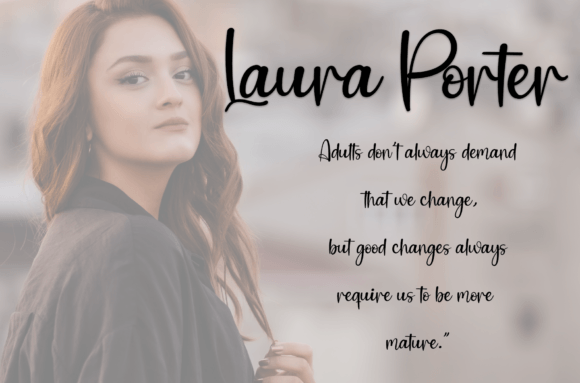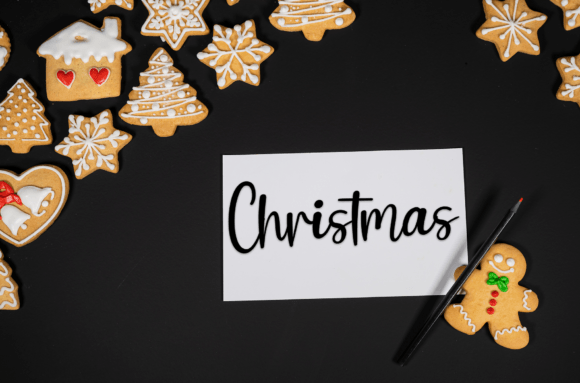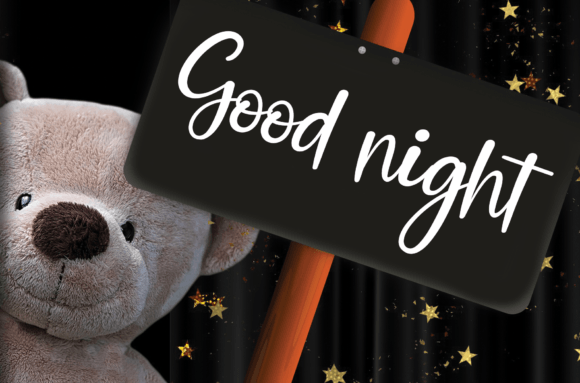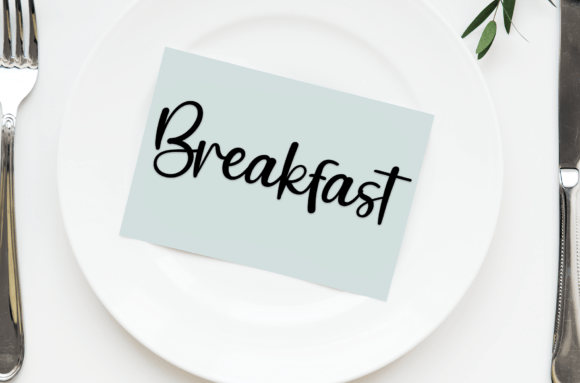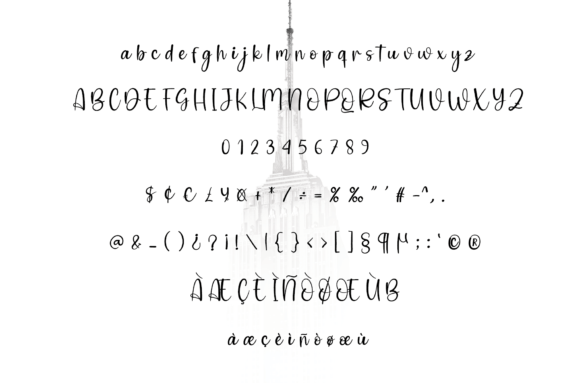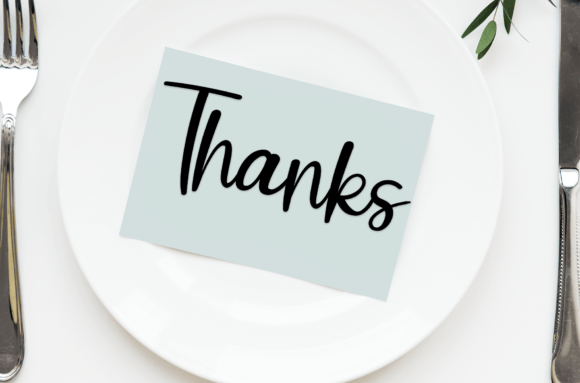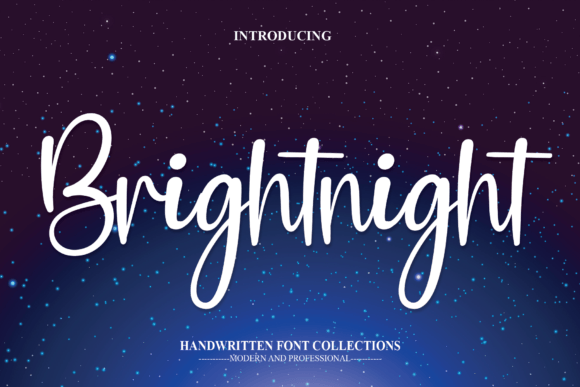
The Sweet Spot: Discovering the Charm of Brightnight Font
I’ll never forget the time I was working on a wedding invitation project, and my client asked for a font that was “warm,” “friendly,” and “whimsical.” I scoured the internet, tried out dozens of fonts, but nothing seemed quite right. That was until I stumbled upon Brightnight Font. ✨ This sweet and friendly handwritten font has since become a staple in my design toolkit, and I’m excited to share its charm with you.
An Honest Review: The Good and the Quirky
What I Love About Brightnight Font
- ✨ Sweet and Friendly: Brightnight Font has a warm, approachable feel that’s perfect for designs that need a personal touch.
- ✅ Highly Legible: Despite its whimsical nature, this font is surprisingly easy to read, even at smaller sizes.
- 🎉 Versatile: Brightnight Font works beautifully for a wide range of design projects, from wedding invitations to social media graphics.
While Brightnight Font is an excellent choice for many projects, it’s not without its quirks. 🤔 For example:
- ⚠️ Limited Formality: As a handwritten font, Brightnight may not be the best choice for very formal or corporate designs.
- ⚠️ Glyph Limitations: While Brightnight has a range of glyphs and alternates, it may not have every special character or symbol you need.
A Practical Guide: Using Brightnight Font in Your Designs
Exploring Alternatives: Similar Fonts to Brightnight
The Story Behind Brightnight Font
Brightnight Font was designed with love and care by a talented type designer who wanted to create a font that would bring joy and warmth to designs. Inspired by the magic of a summer night, Brightnight Font is the perfect choice for designs that need a touch of whimsy and personality.
Q: What type of designs is Brightnight Font best suited for?
A: Brightnight Font is ideal for designs that need a personal touch, such as wedding invitations, cards, and social media graphics.
Q: Does Brightnight Font have a wide range of glyphs and alternates?
A: Yes, Brightnight Font has a range of glyphs and alternates, including stylistic alternates and OpenType features.